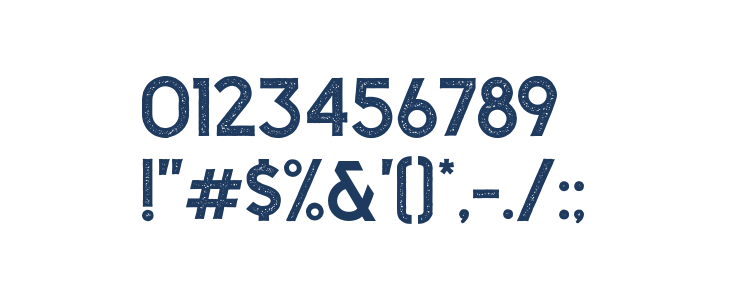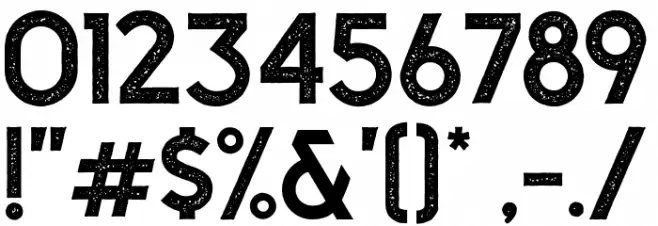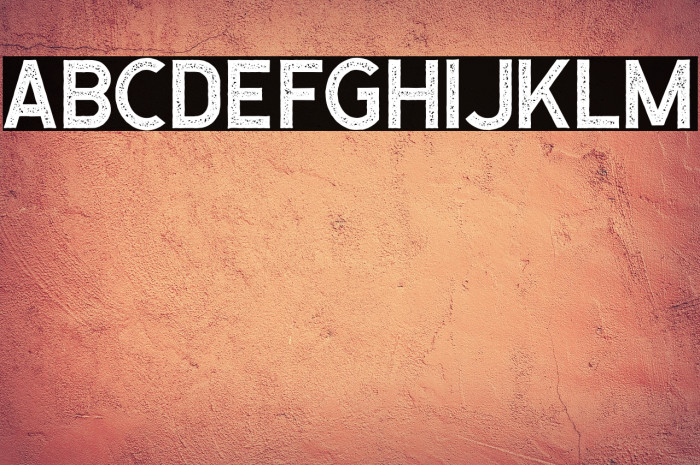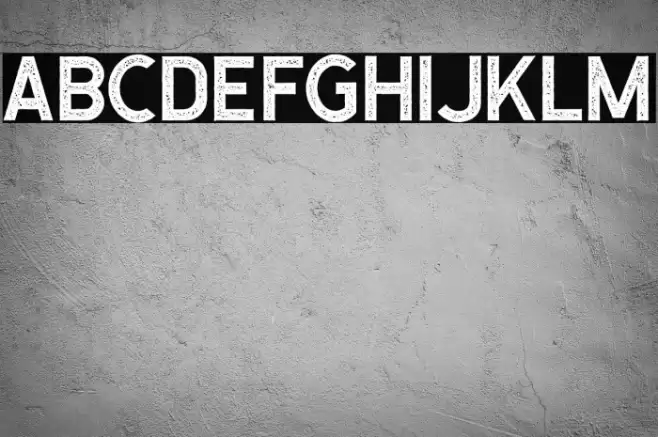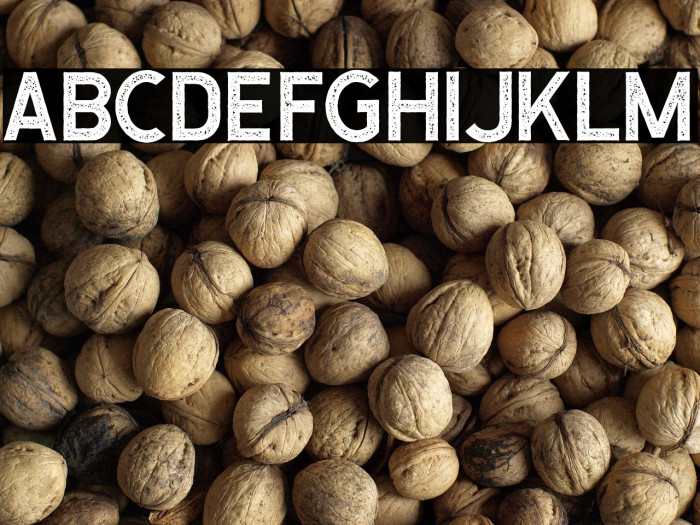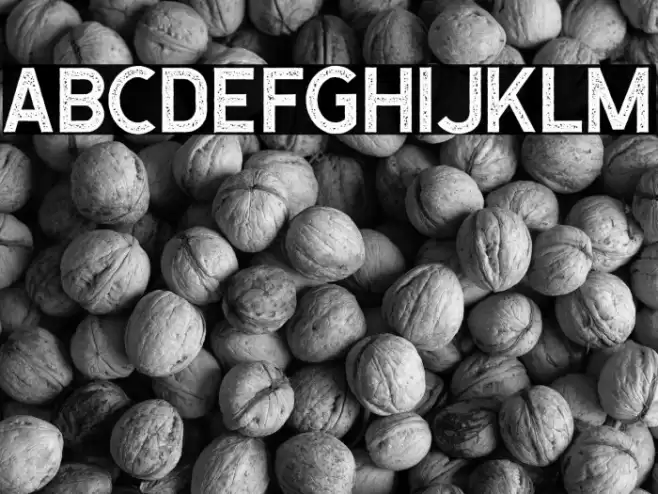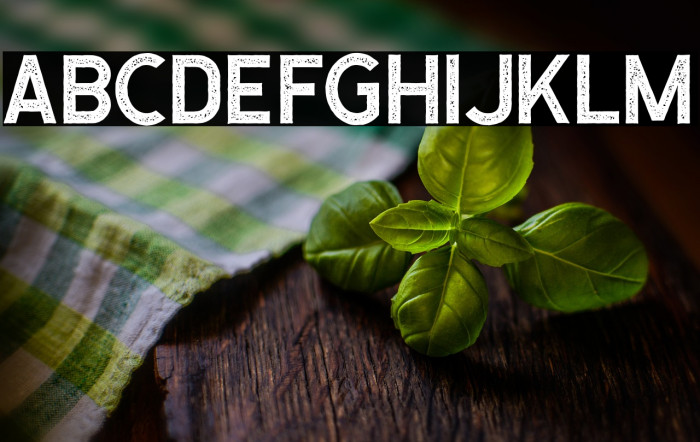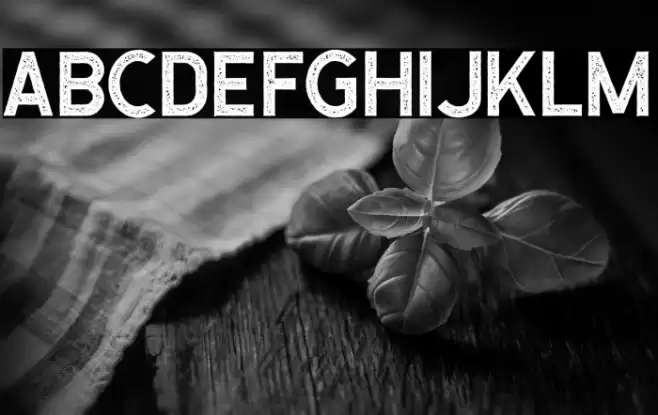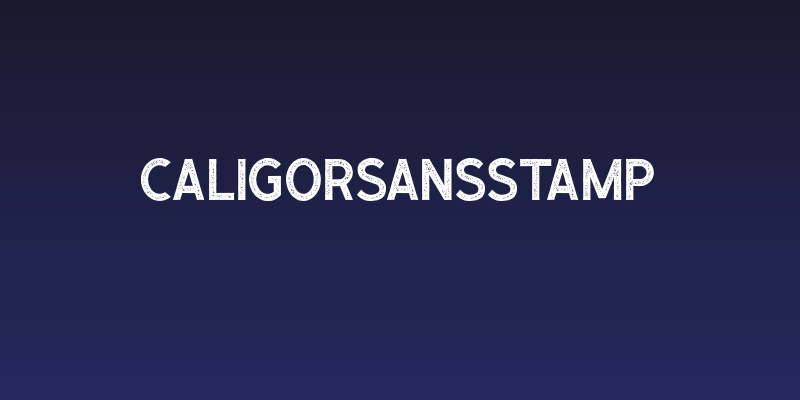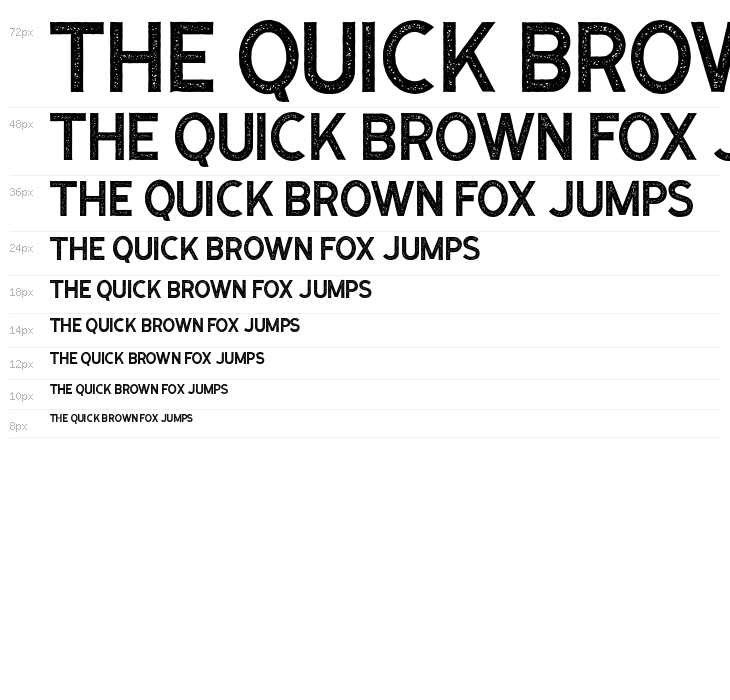
CaligorSansStamp Font
CaligorSansStamp Description
This font features a bold, distressed style that mimics the appearance of a vintage rubber stamp. Each character is marked with a textured, worn effect, giving it a rugged and industrial feel. The uppercase letters are strong and impactful, while the numbers and special characters maintain the same bold presence. The overall design is consistent, with each letter and symbol exhibiting the same distressed pattern, making it ideal for projects that require a retro or grunge aesthetic. The font's unique style is perfect for creating eye-catching headlines, posters, and branding materials that need a touch of nostalgia or a handcrafted look.
Overall StyleVintage
Proposed ProjectsIdeal for vintage-themed posters, branding, packaging, and headlines.